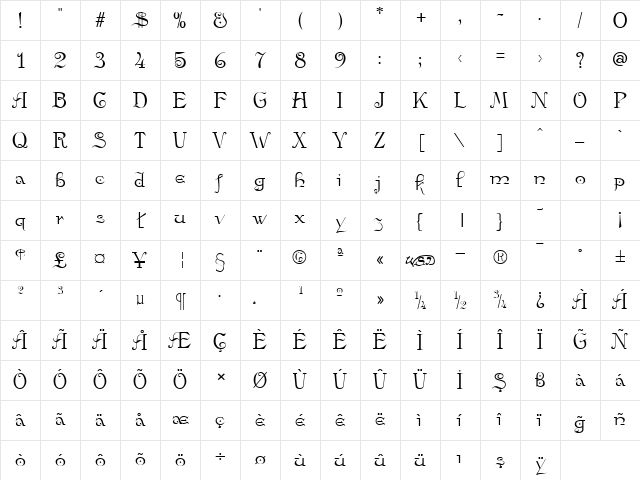
Complete TR Anglican Regular glyph index. Displaying only characters natively supported by TR Anglican Regular font.
TR Anglican is a composed and adaptable typeface that performs quietly and consistently across a wide range of design contexts.